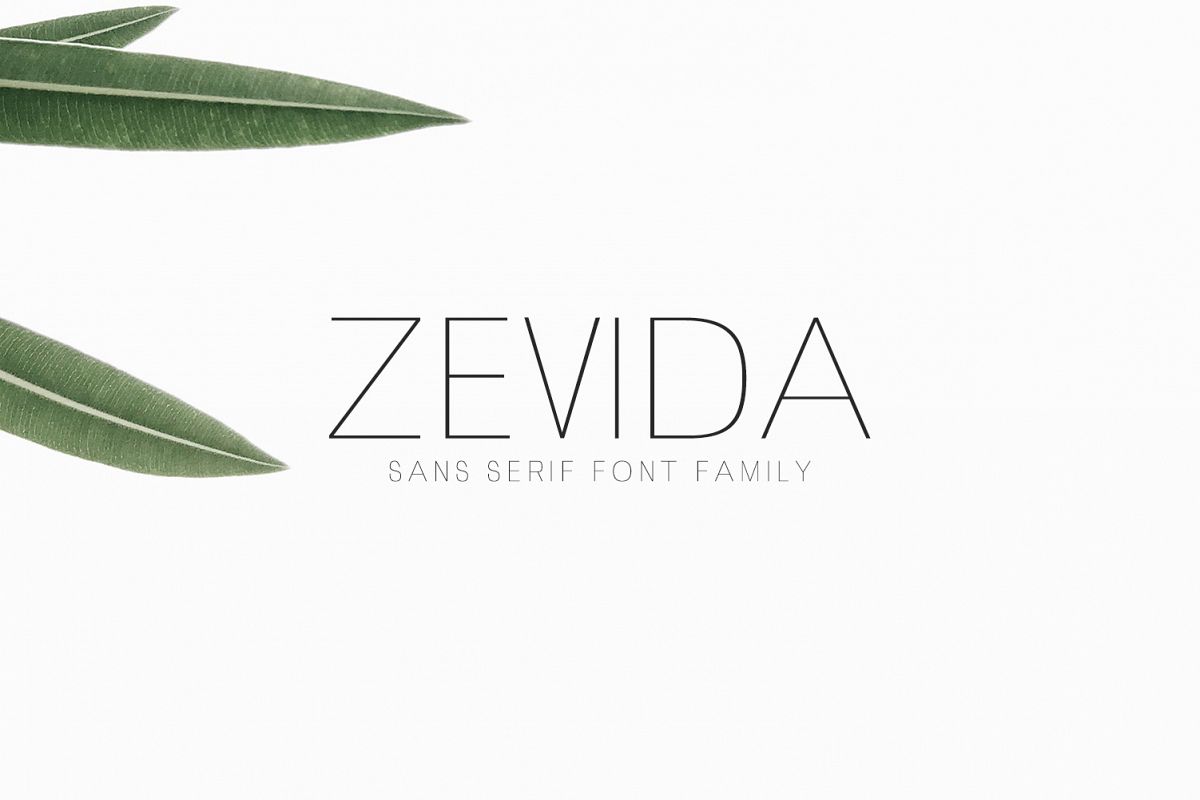
Zevida 4 Sans Serif Font Family
Zevida 4 Sans Serif Font Family is a simple but remarkable sans serif font that looks stunning in every context. It's perfect for logos, titles, name card, magazine, web layouts, invitations, headers and branding. It looks gorgeous in all caps with a wide-set spacing if you want to try a classy look, or beautiful on its own in capital and lowercase letters for something completely timeless.
Included Features:
• Font Weight: Regular, Light, Thin and Bold
Zevida Font Features:
• Uppercase Multilingual Letters
• Lowercase Multilingual Letters
• Alternatives